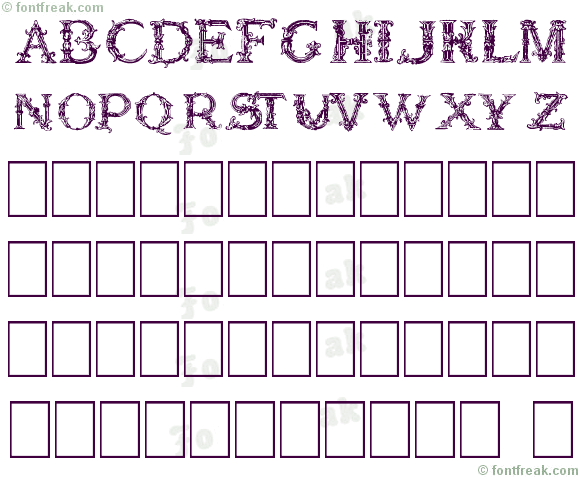
Burgoyne_Initials
Burgoyne, designed by Paul Lloyd, is a stunning serif typeface that combines classic elegance with a modern flair, making it an excellent choice for various design projects. This font exhibits a balanced stroke weight, providing a harmonious contrast between thick and thin lines that brings a sense of sophistication to any text. The letterforms are thoughtfully crafted, featuring gentle curves and distinctive serifs that enhance readability while adding a touch of personality. The generous spacing between characters ensures clarity, making it ideal for both print and digital applications.
Burgoyne's versatility allows it to shine in several specific use cases. It is particularly well-suited for wedding invitations, where its romantic aesthetic can elevate the overall design and capture the essence of the occasion. Additionally, the font works beautifully on movie posters, lending a classic yet contemporary feel that can draw attention and convey the film's tone. Restaurant menus benefit from Burgoyne's refined appearance, making dishes feel more appealing and the dining experience more upscale. It can also be used in branding materials, allowing small business owners to create a memorable first impression with a touch of elegance.